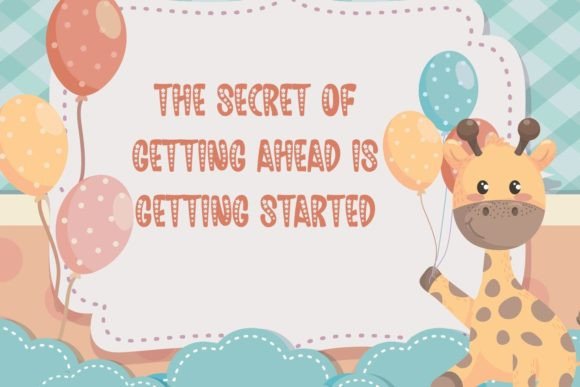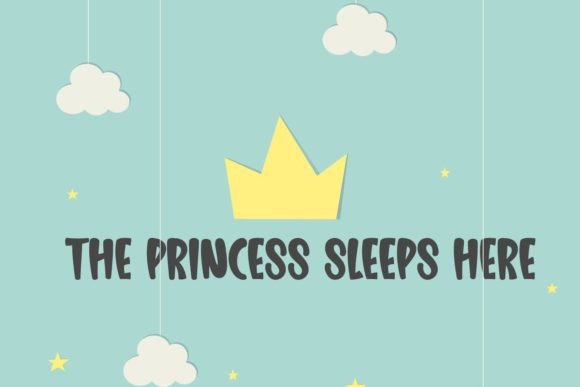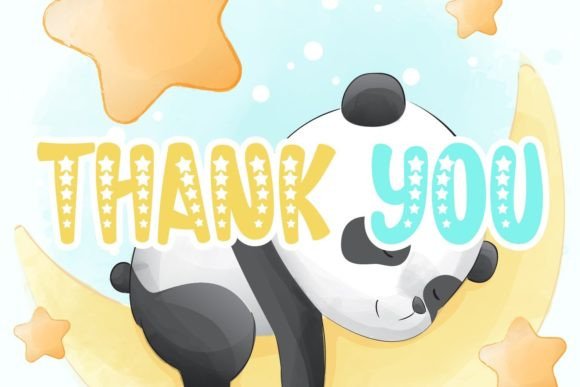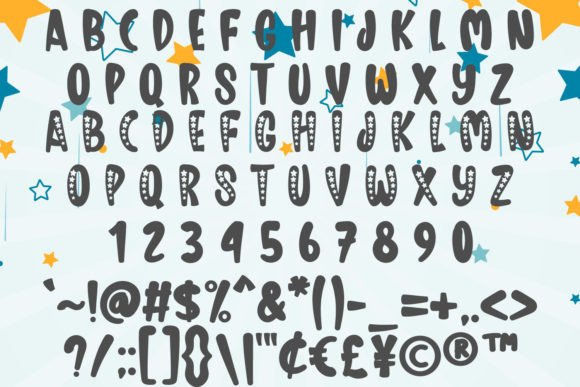
Introduction to Baby Star Font
Baby Star is a cute and playful display font suitable for any topic that makes it stand out.
Baby Star is a cute and playful display font suitable for any topic that makes it stand out. It is perfect for children-themed designs, especially when combined with bright colors
Key Features of Baby Star Font
Why Choose Baby Star Font?